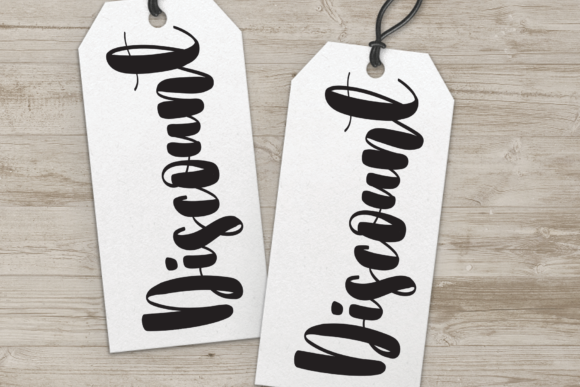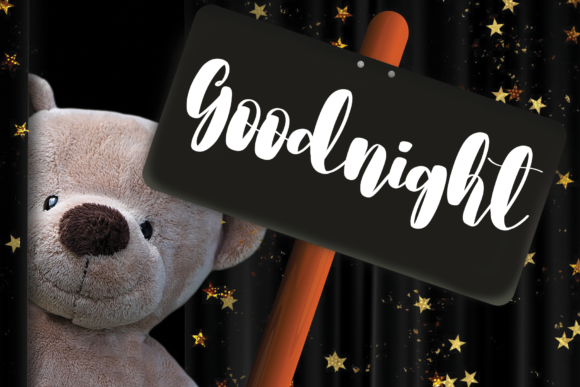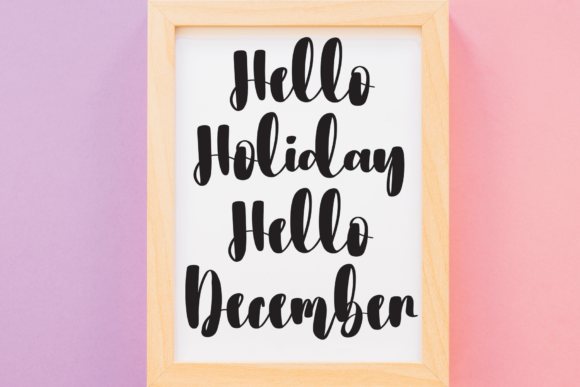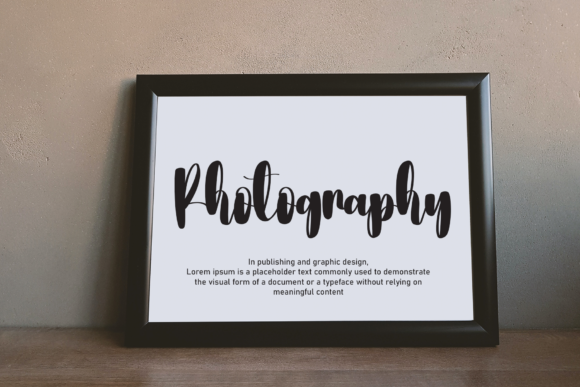
Deck the Halls with Christmas Font: The Ultimate Guide for Designers and Crafters
Are you looking for a unique and creative font to add a touch of festive magic to your next DIY project? Look no further than Christmas Font! This delightful font is perfect for designers and crafters who want to create eye-catching and merry designs for stickers, t-shirt designs, branding, kid’s clothes, and more. In this article, we’ll dive into the world of Christmas Font and explore its features, uses, and benefits.
What is Christmas Font?
Christmas Font is a one-of-a-kind, hand-crafted font that captures the essence of the holiday season. Its playful and whimsical design makes it perfect for creating festive and fun designs that are sure to spread cheer. With its unique and creative style, Christmas Font stands out from other fonts, making it an excellent addition to any designer’s or crafter’s toolkit.
Features of Christmas Font
So, what makes Christmas Font so special? Here are some of its key features:
- Unique and creative design: Christmas Font boasts a distinctive and imaginative design that’s sure to make your creations stand out.
- Playful and whimsical style: This font’s playful and whimsical style is perfect for creating fun and festive designs.
- Hand-crafted with love: Each letter and character in Christmas Font has been carefully crafted with love and attention to detail.
- Versatile and adaptable: Christmas Font can be used for a wide range of projects, from stickers and t-shirt designs to branding and kid’s clothes.
Uses of Christmas Font
Christmas Font is an incredibly versatile font that can be used for a variety of projects, including:
- Stickers and labels: Add a touch of festive fun to your stickers and labels with Christmas Font.
- T-shirt designs: Create eye-catching and merry t-shirt designs that are perfect for the holiday season.
- Branding and packaging: Use Christmas Font to add a touch of festive magic to your branding and packaging.
- Kid’s clothes and accessories: Create adorable and fun designs for kid’s clothes and accessories with Christmas Font.
- DIY projects and crafts: Add a touch of festive fun to your DIY projects and crafts with Christmas Font.
Benefits of Using Christmas Font
So, why should you choose Christmas Font for your next project? Here are some of the benefits of using this amazing font:
- Stand out from the crowd: With its unique and creative design, Christmas Font is sure to make your creations stand out from the crowd.
- Add a touch of festive magic: Christmas Font is the perfect way to add a touch of festive magic to your designs and projects.
Tips and Tricks for Using Christmas Font
Here are some tips and tricks for getting the most out of Christmas Font:
- Experiment with different colors and textures: Try out different colors and textures to add depth and interest to your designs.
- Pair with other fonts: Pair Christmas Font with other fonts to create unique and eye-catching designs.
- Use for seasonal and holiday designs: Use Christmas Font for seasonal and holiday designs to create a cohesive and festive look.
Christmas Font is a unique and creative font that’s perfect for designers and crafters who want to add a touch of festive magic to their next DIY project. With its playful and whimsical design, versatile and adaptable style, and easy-to-use features, Christmas Font is an excellent addition to any designer’s or crafter’s toolkit. So why wait? Get creative with Christmas Font today and make your designs shine!